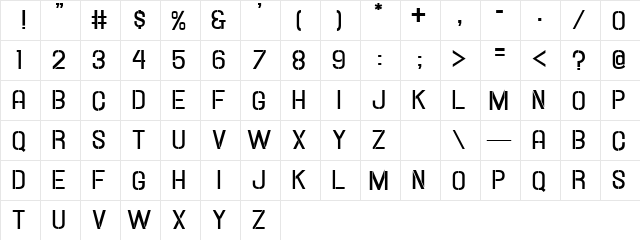
Hallandale Stencil Bold JL Regular
| Foundry | Jeff's Fonts & Dingbats |
| Designer | Jeffrey N. Levine |
Design Context for Hallandale Stencil Bold JL Typeface
Hallandale Stencil Bold JL has the rough pragmatism of spray-painted stencil signage, adding a raw, street-level authenticity to designs. Its bold stroke weight gives it real presence on the page.
A strong choice for packaging that needs edge, warehouse aesthetics, and rough-and-ready visual identities.
Pro Tip: Use Hallandale Stencil Bold JL at large sizes on packaging, posters, or apparel where the stencil cutaways read clearly. Avoid small sizes where those gaps become visual noise.